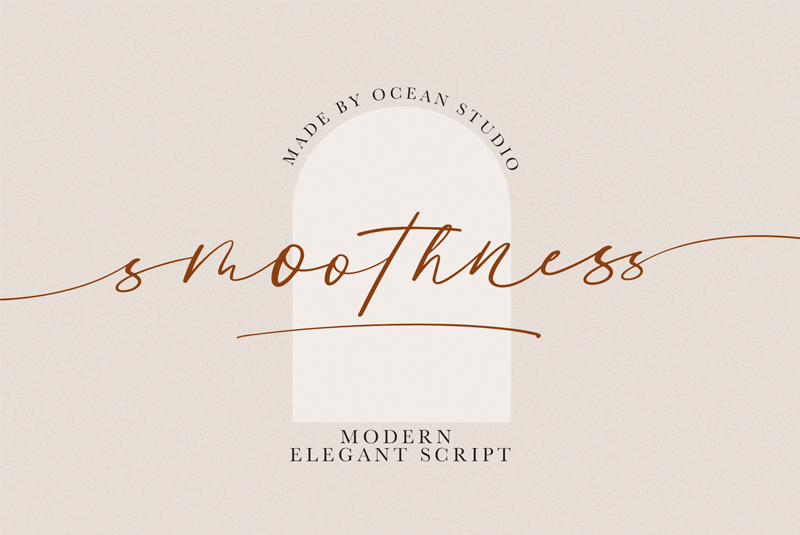
Smoothness is a modern script font. Smoothness is a gorgeous organic handwritten and that looks stunning in just about every works. With Full Multilingual support. well-suited for advertising, branding, logotypes, packaging, titles, headlines and editorial design. Enjoy with Smoothness font. Cheers! Features : Lowercase Beginning & Ending Characters, Extra Swashes & Ligatures. This Font Only For Personal Use but My Welcome To Every Purchace�.. Link to purchase full version and commercial https://fontbundles.net/ocean-studio/836901-smoothness or https://www.creativefabrica.com/product/smoothness/ref/236285/ If you need an extended license or corporate license, please contact me at lairecreativee@gmail.com And follow my instagram : @theoceanstudio Note : this helps you to use all of our font functions � Adobe Photoshop go to Window - glyphs � Adobe Illustrator go to Type - glyphs You can get special characters by access Character Map for Windows user, and Font Book for MAC user. Download tutorial below : How to Access special characters, You can Download the link for Support you More... |